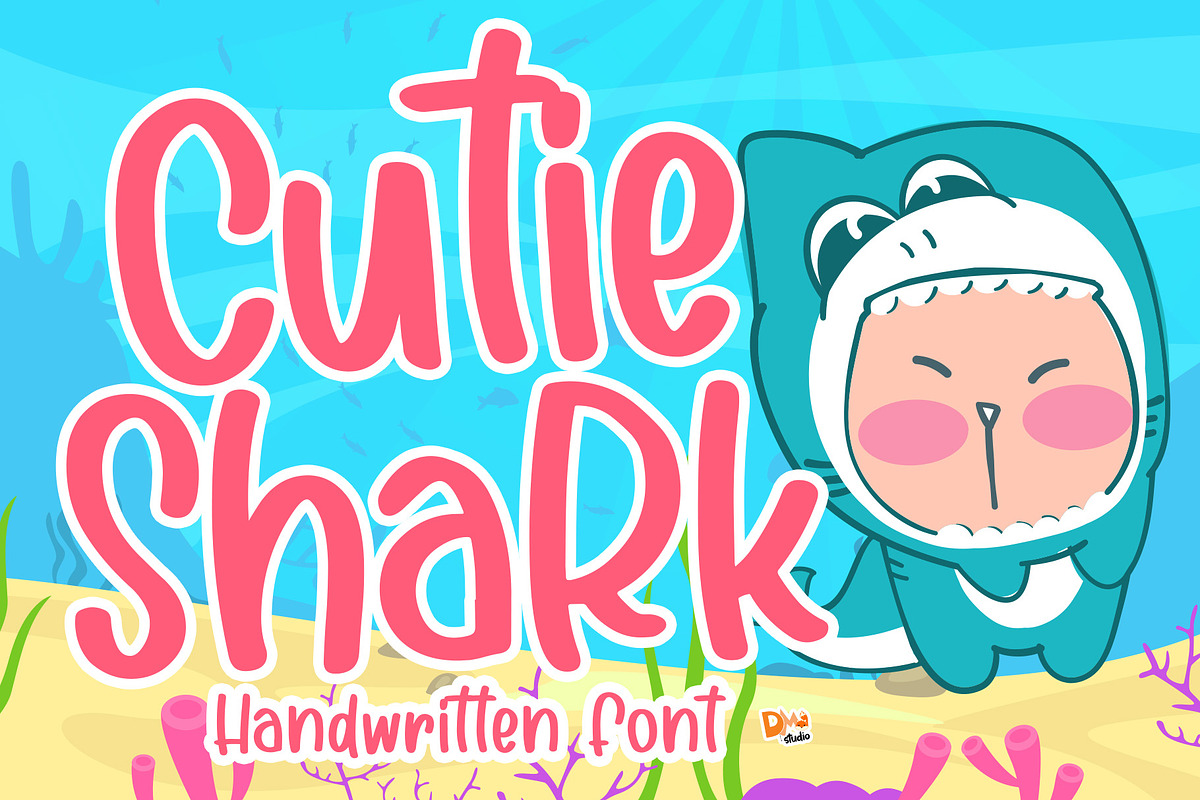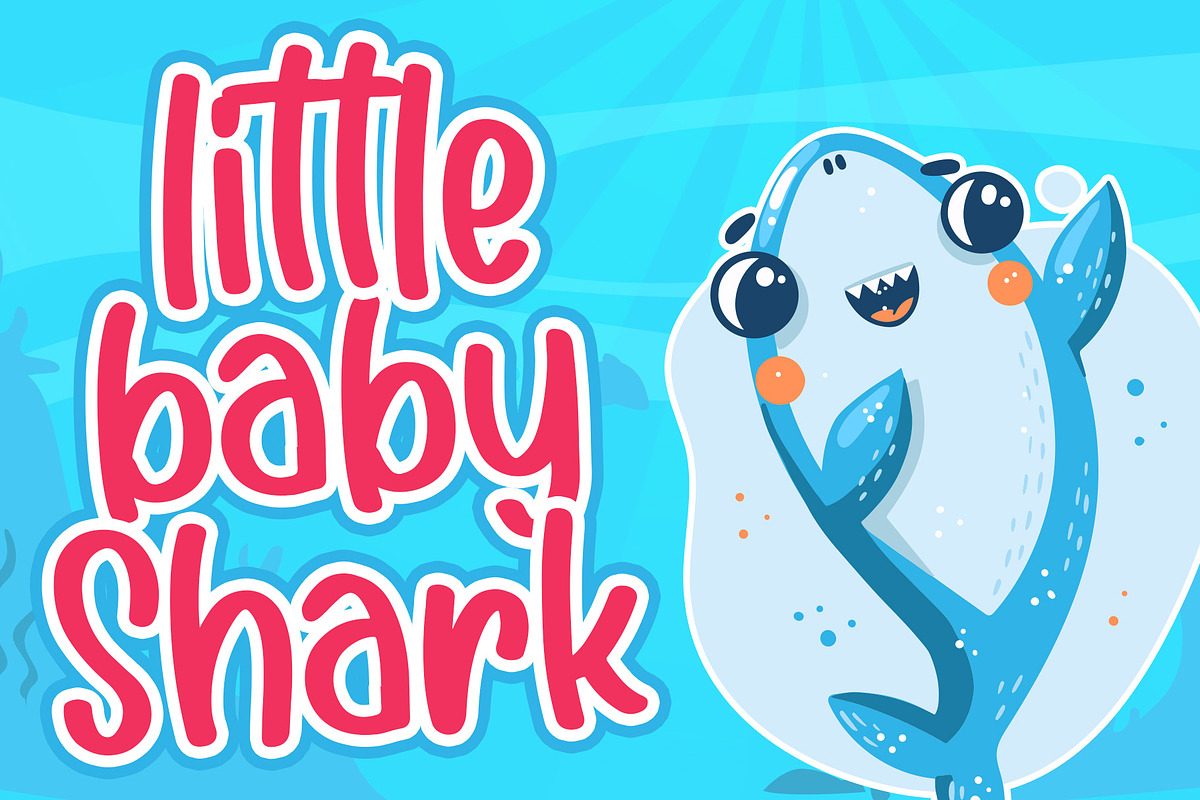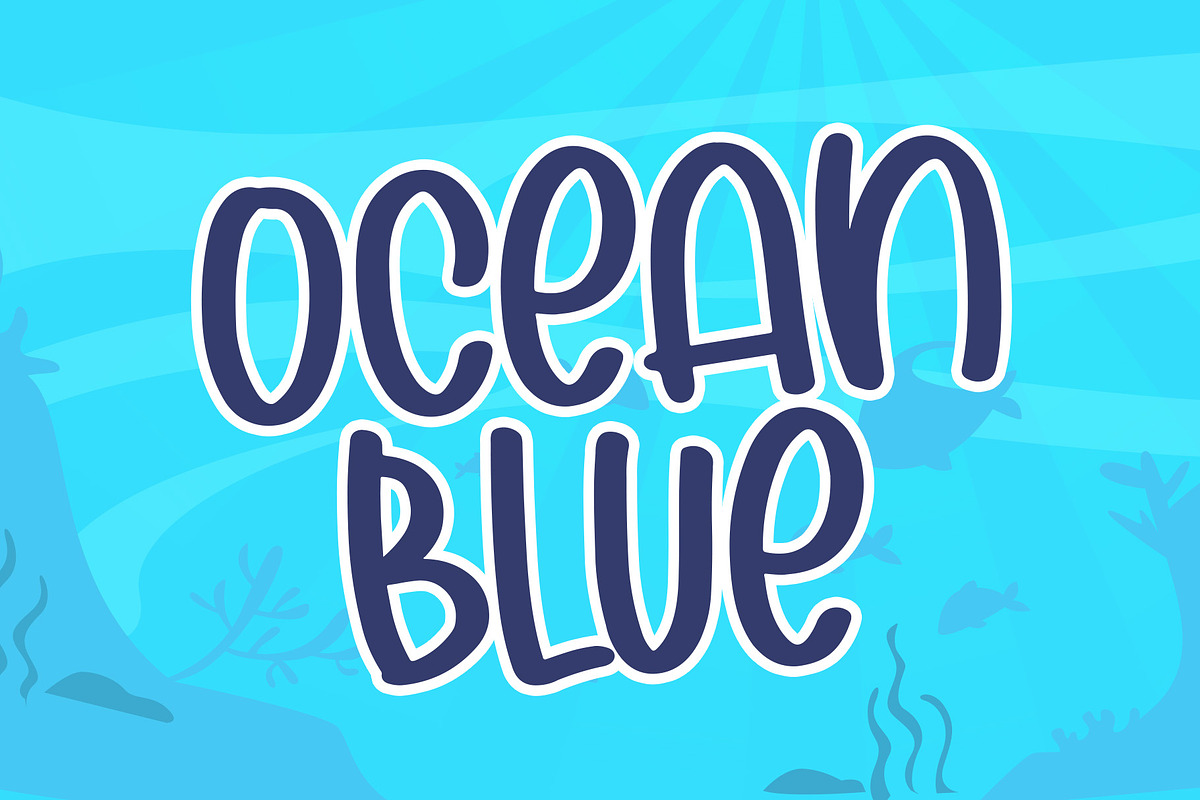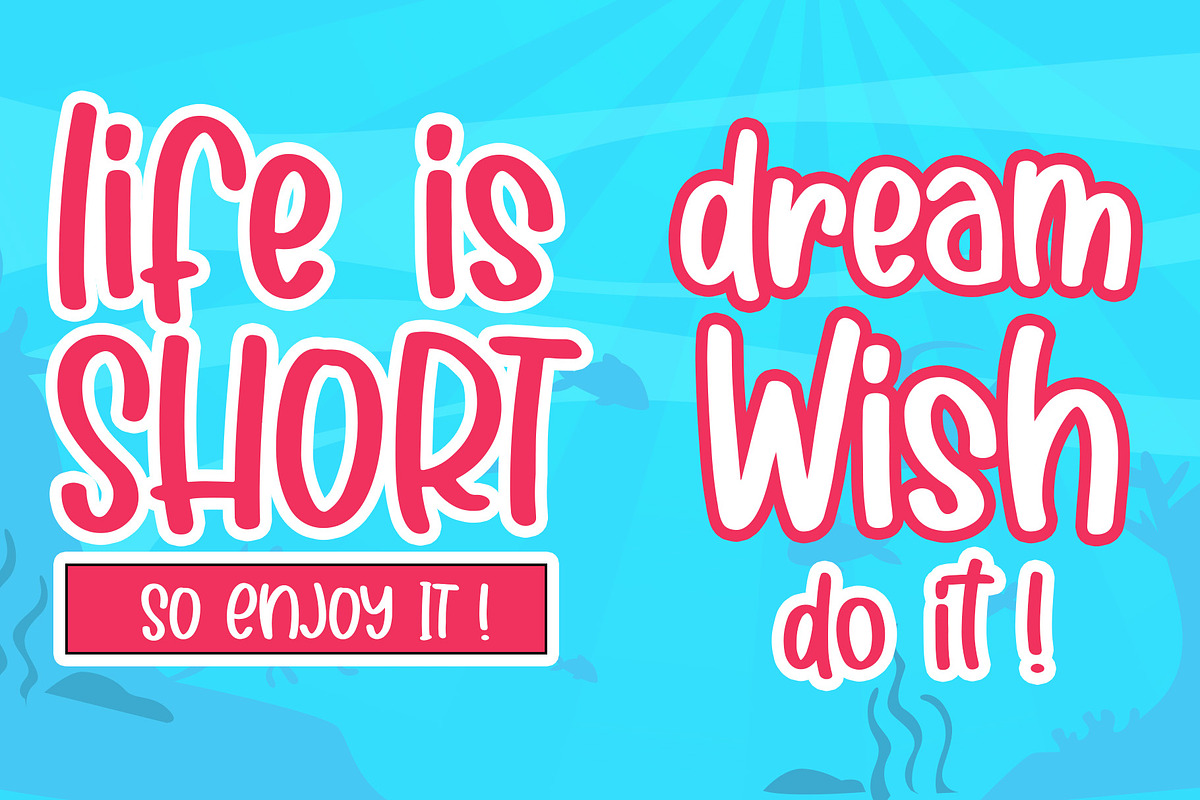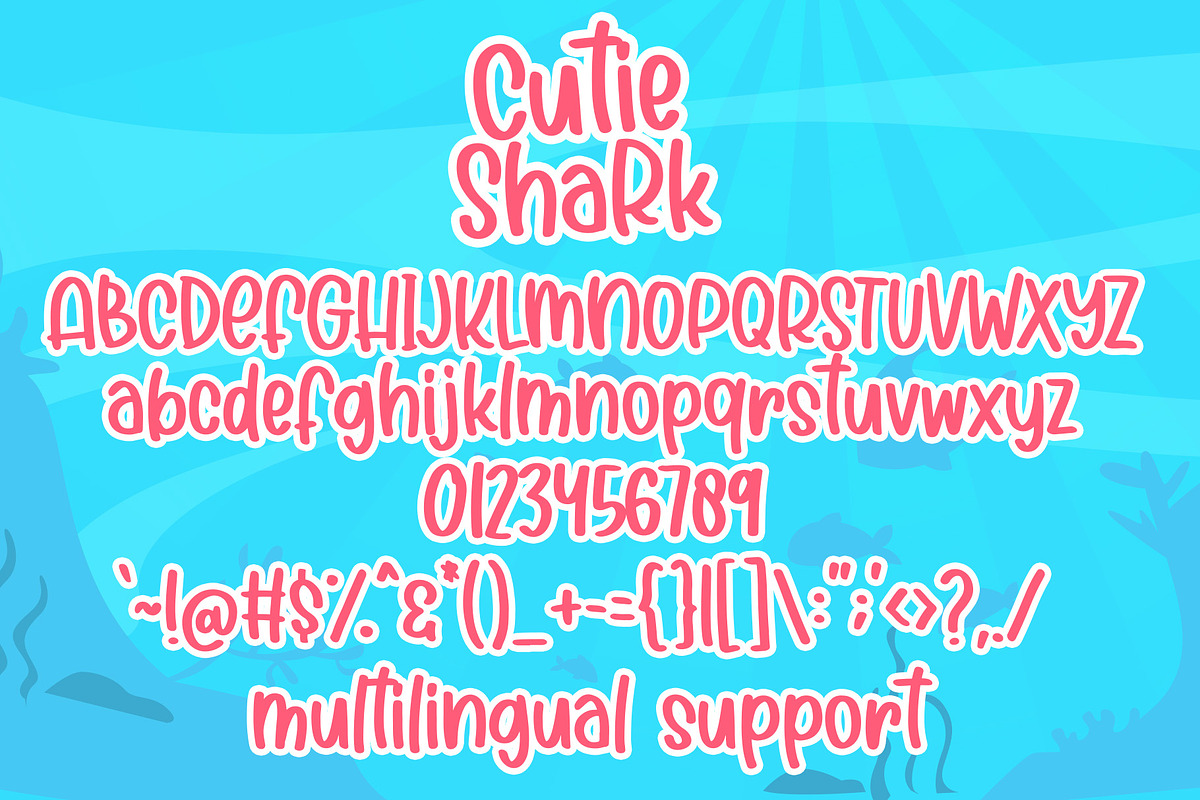
Cutie Shark - Handwritten Font
Meet this "Cutie Shark", the cute handwritten font for your lovely day!
Cutie Shark - Handwritten Font by Dm Studio fits naturally into Branding, posters, packaging, typography.